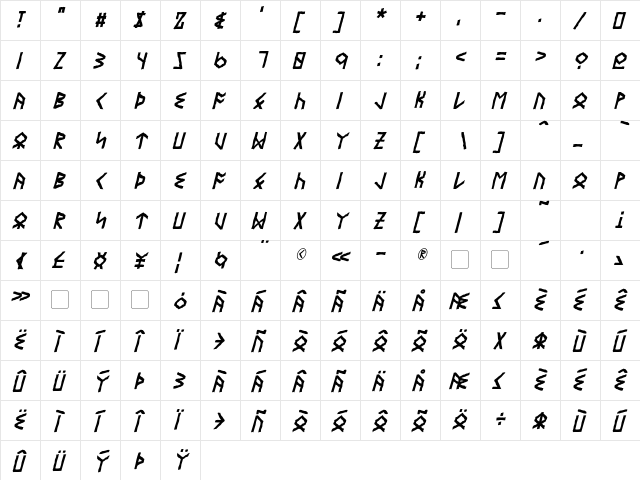
Eyvindr Italic
Design Context for Eyvindr Typeface
Eyvindr is a composed and adaptable typeface that performs quietly and consistently across a wide range of design contexts. Its italic angle brings a sense of urgency and motion to the letterforms.
Pro Tip: Try Eyvindr for annotation and caption copy alongside an upright companion — the contrast in angle creates a dynamic but ordered typographic system.